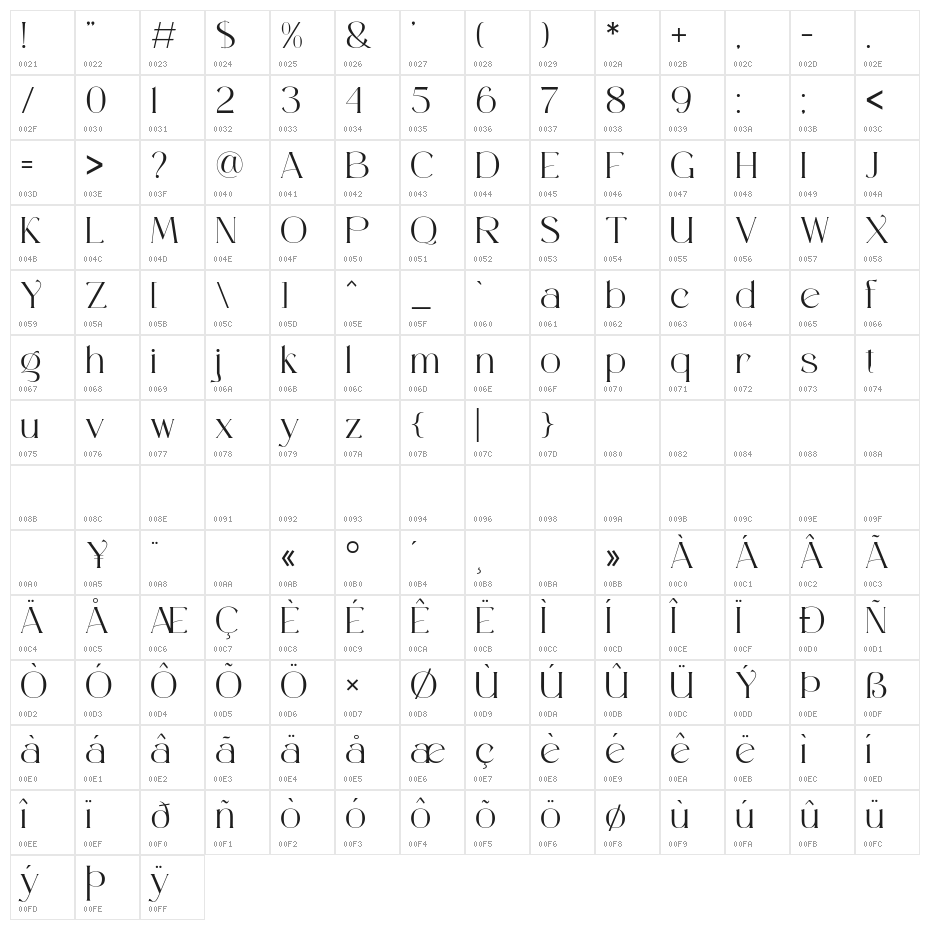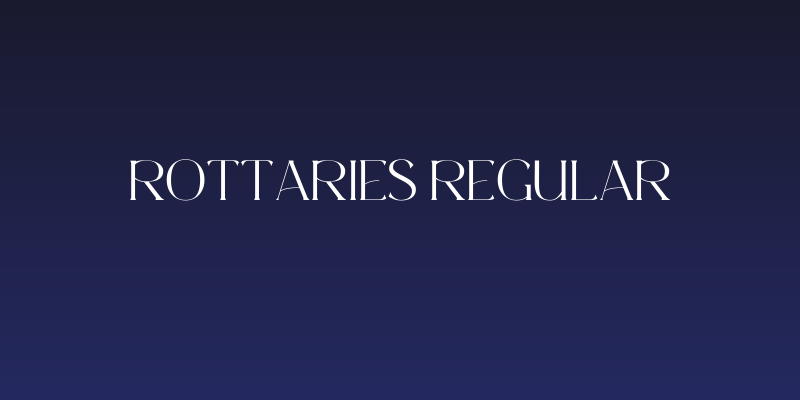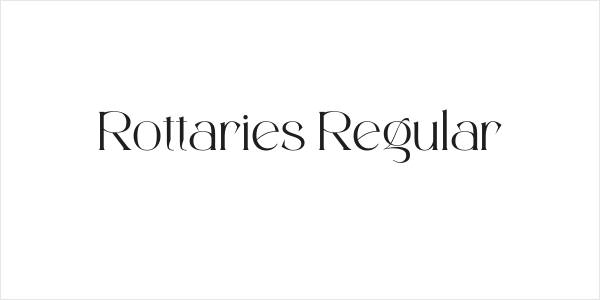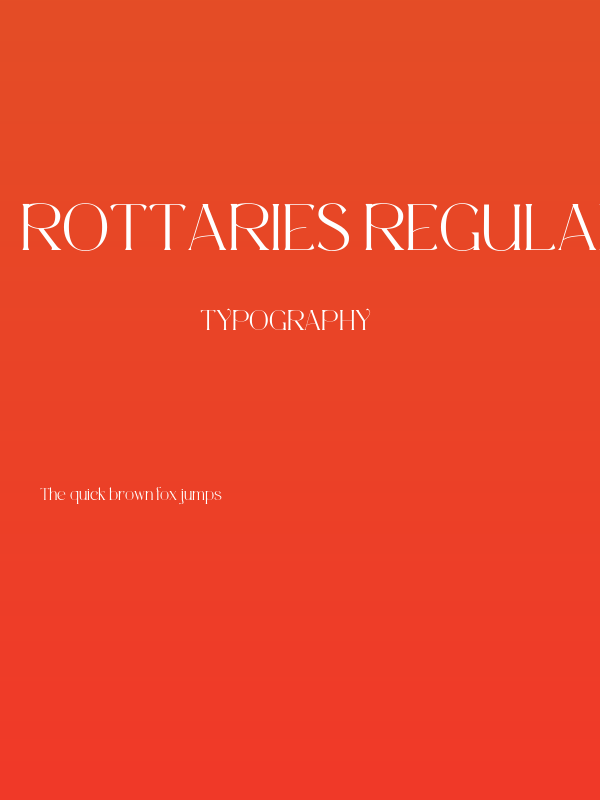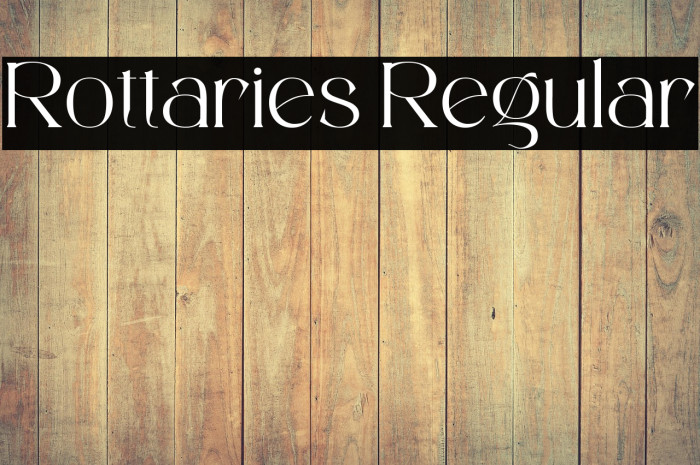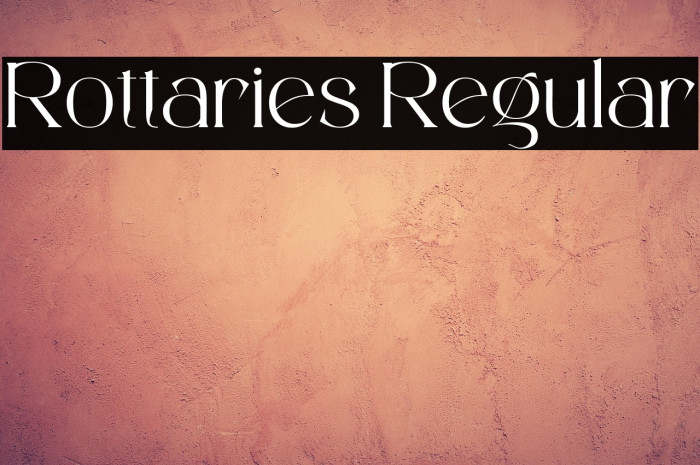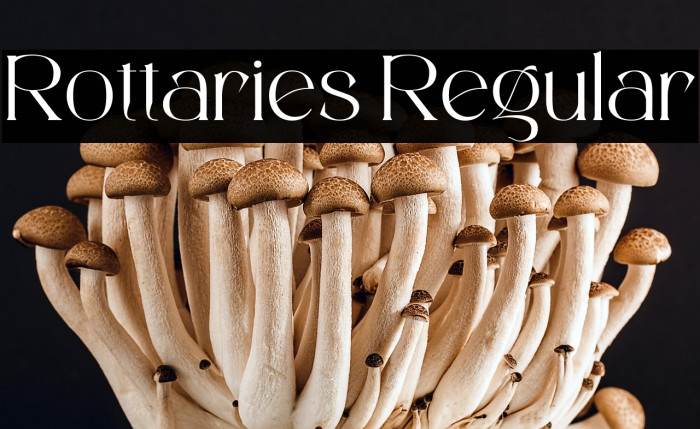
Rottaries Regular Font
Rottaries Regular Description
This font features a sophisticated and elegant design with a modern twist. The uppercase letters are tall and slender, with a subtle contrast between thick and thin strokes that adds a touch of refinement. The lowercase letters maintain a consistent style, offering a harmonious blend of curves and straight lines. The numerals are distinct and easy to read, while the special characters are crafted with the same attention to detail. Overall, this font exudes a sense of luxury and style, making it suitable for high-end branding and editorial design.
| Overall Style | Elegant and modern |
| Use Case | Headlines, Logos, Editorial design |
| Proposed Projects | Ideal for luxury branding, editorial design, fashion magazines, and upscale product packaging. |